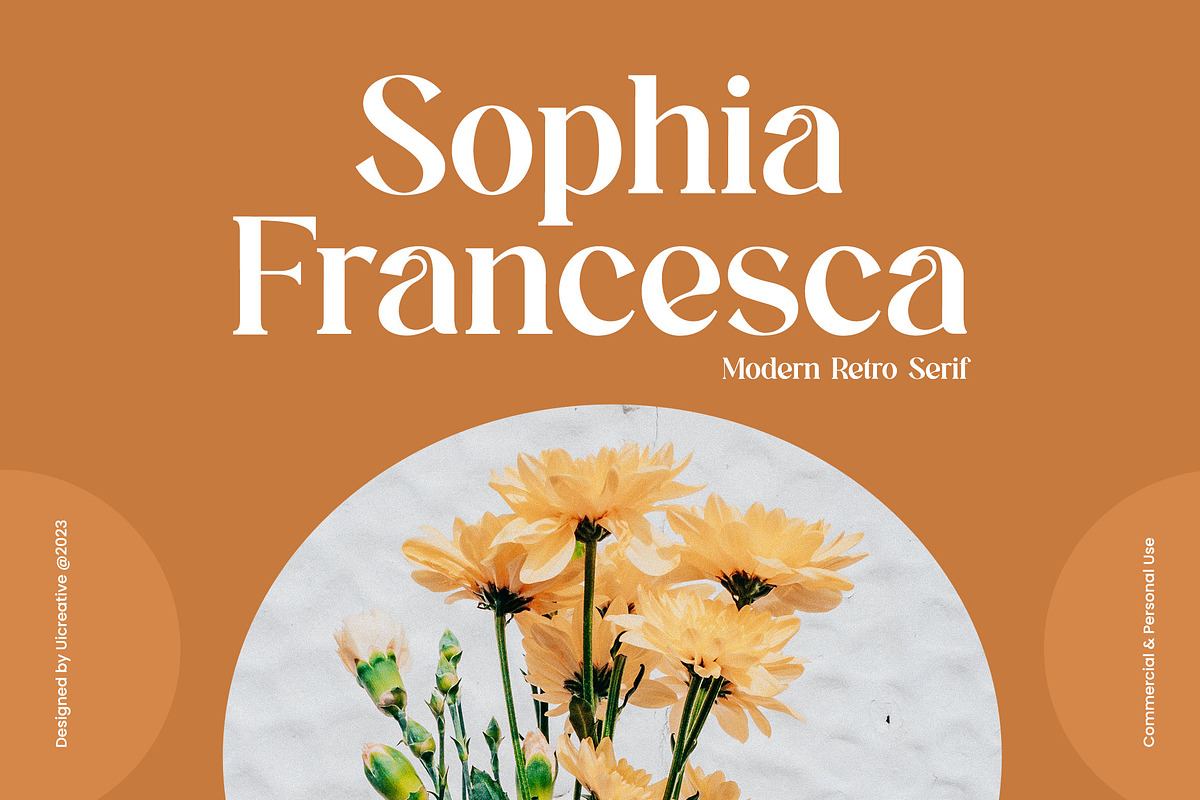
Sophia Francesca Modern Retro Serif Free Download
Sophia Francesca Modern Retro Serif Font Free Download
Sophia Francesca Modern Retro Serif Font Free Download is a stylish, contemporary serif typeface with vintage influences. Featuring bold letterforms, smooth curves, and a unique retro aesthetic, this font is perfect for modern branding, logos, packaging, editorial design, and any project that needs a blend of classic sophistication and vintage flair.
The clean, elegant structure of Sophia Francesca makes it perfect for high-end designs, while its retro vibe adds character and a timeless appeal. Whether you're designing for fashion, lifestyle, or creative branding, this font will add a polished yet nostalgic touch to your typography.